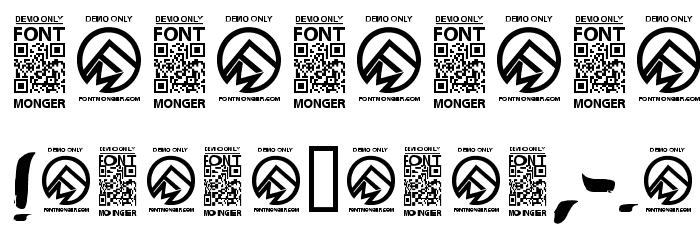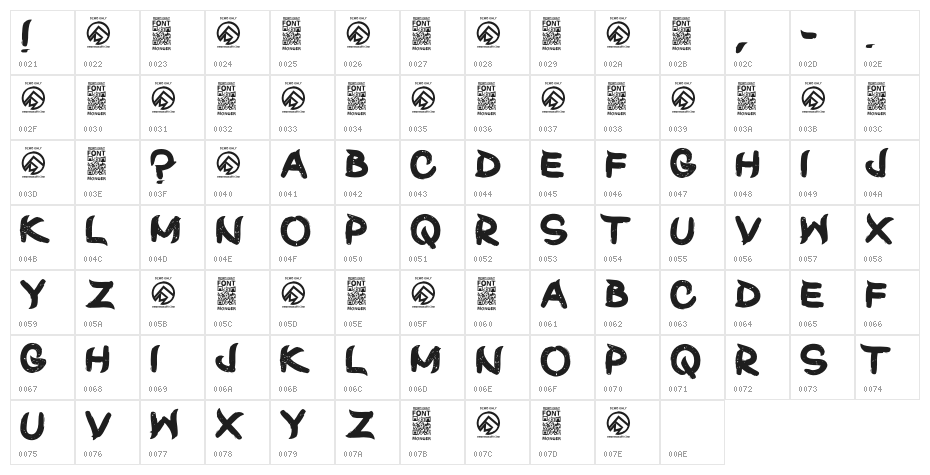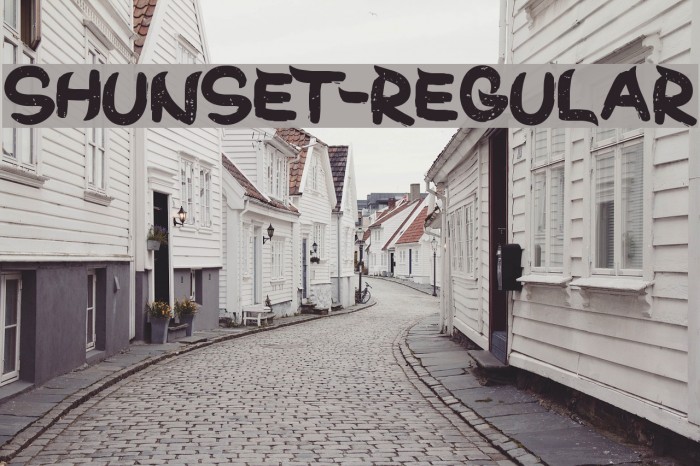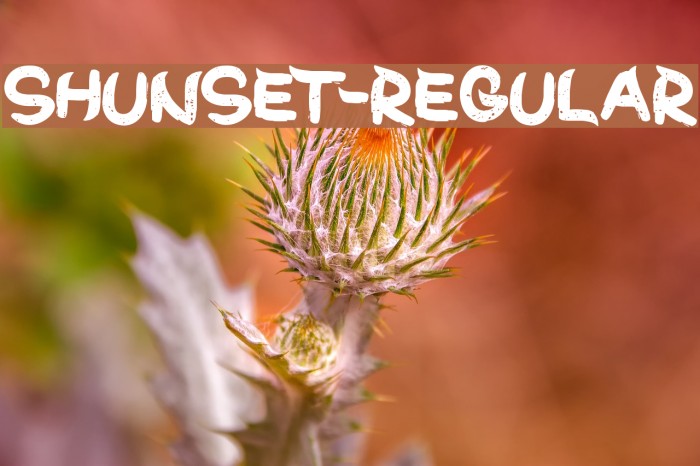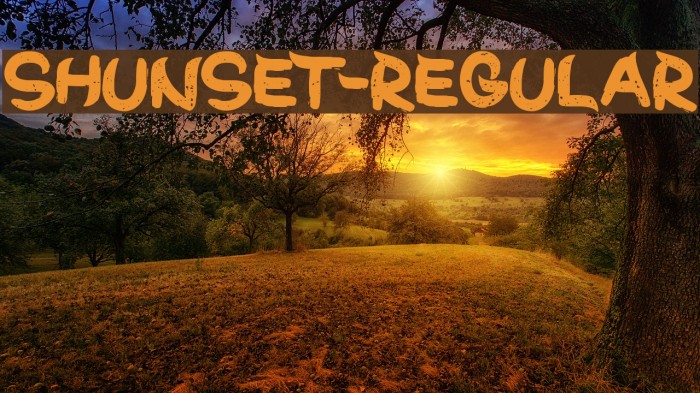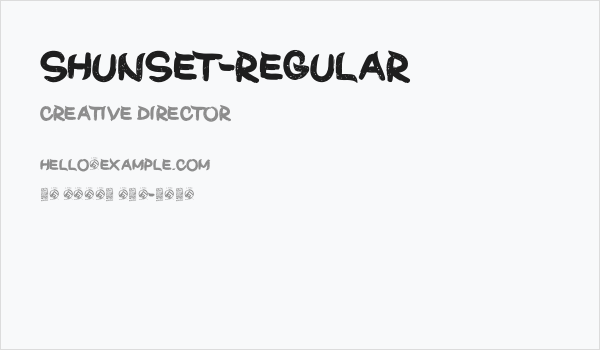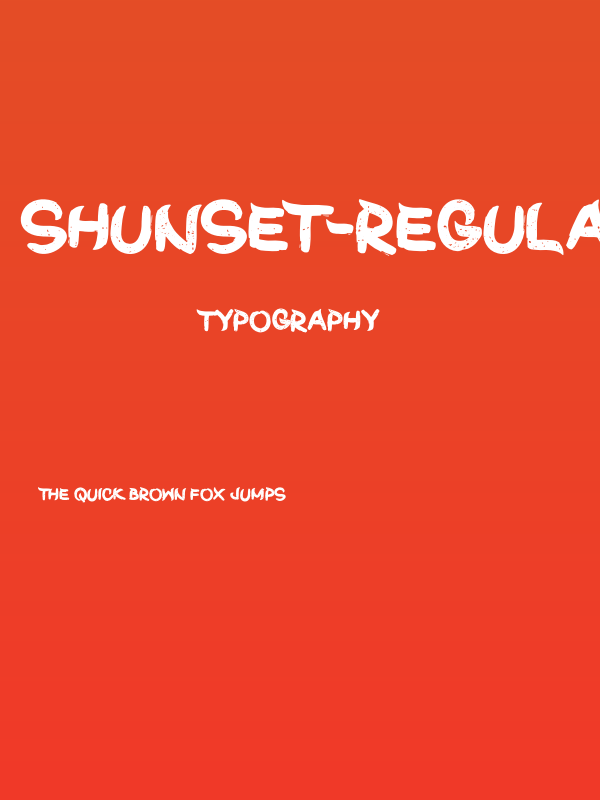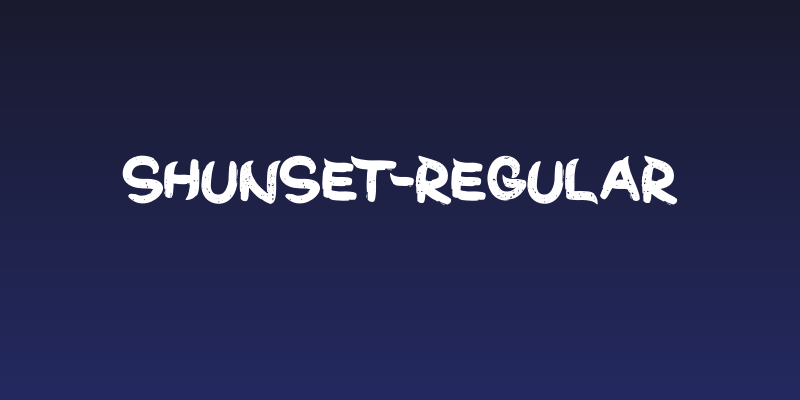
ShunSet-Regular Font
ShunSet-Regular Description
This font features a bold and dynamic style with a distressed, grunge-like texture. The characters are thick and slightly irregular, giving them a hand-drawn appearance. The uppercase letters are prominent and commanding, while the lowercase letters maintain a consistent style. The numbers and special characters follow the same rugged aesthetic, making the font suitable for impactful and edgy designs. Its unique texture adds a layer of depth and character, making it stand out in any project.
| Proposed Projects | Ideal for posters, album covers, streetwear branding, and any project that requires a bold, edgy look. |